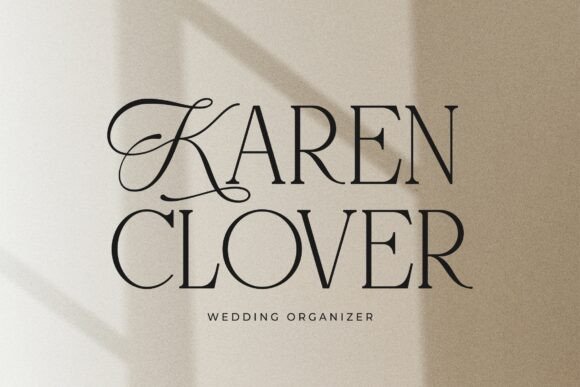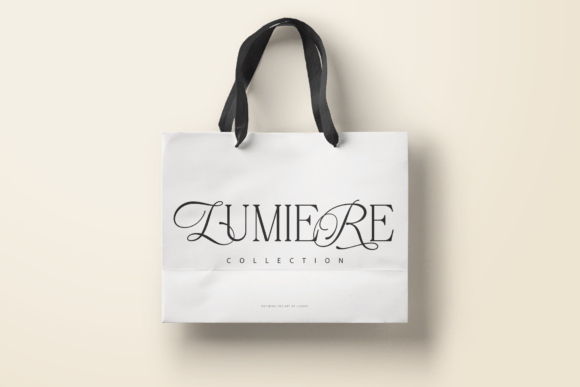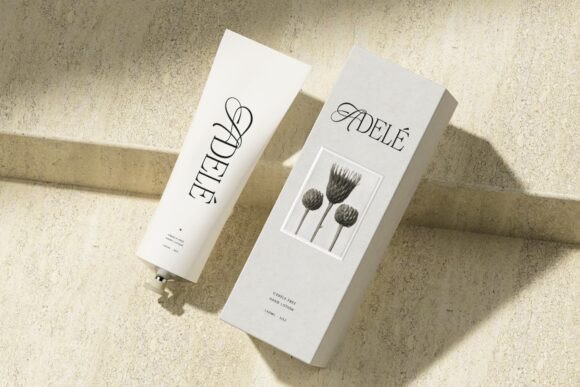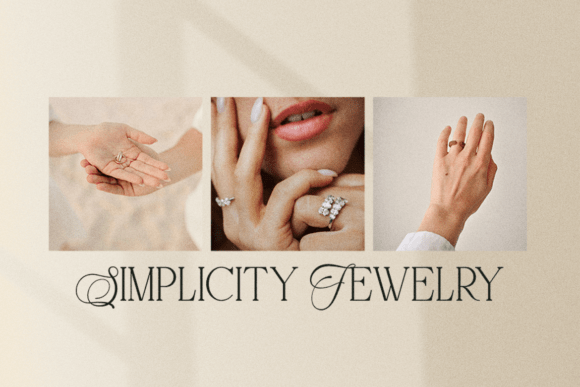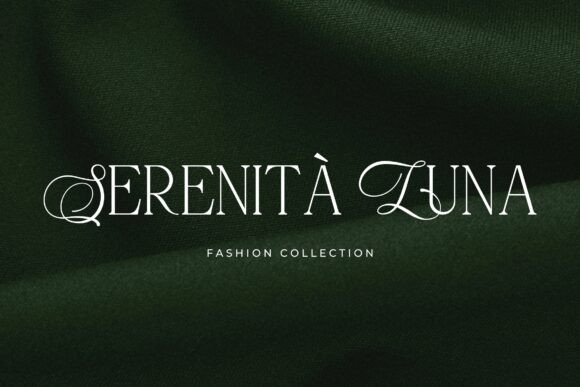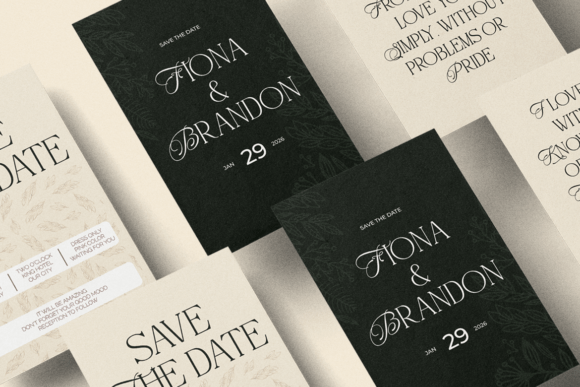
Introducing Atelier Blume: The Elegant Union of Script and Serif
In the world of typography, few fonts manage to capture the essence of elegance and versatility as effectively as Atelier Blume. This refined typeface is a masterful blend of elegant script and timeless serif, creating a duo that not only stands strong on its own but also harmonizes beautifully when used together. Atelier Blume offers a fresh perspective on typographic design, making it an ideal choice for a wide range of creative projects, from branding and web design to editorial work.
The Harmony of Script and Serif
Atelier Blume’s unique charm lies in its dual nature. The script component brings a fluid, organic feel, perfect for adding a personal touch to designs. Meanwhile, the serif element provides structure and a sense of tradition, ensuring readability and a classic appeal. This combination allows designers to craft visually appealing and emotionally resonant content. Whether you’re aiming for sophistication, creativity, or a mix of both, Atelier Blume offers the flexibility to bring your vision to life.
Versatility at Its Core
One of the standout features of Atelier Blume is its incredible versatility. Designers can use the script and serif components separately, each bringing its own unique flair to a project. However, the real magic happens when they’re combined. Atelier Blume allows for the seamless merging of its two styles within a single word, creating a distinctive and eye-catching look that’s sure to capture attention. This ability to blend styles with such ease makes it a valuable tool for designers looking to push the boundaries of creativity.
Ideal for Creative Projects
Atelier Blume’s range of applications is vast. In branding, it can help create a memorable and elegant identity. For web design, its readability and aesthetic appeal make it perfect for both headings and body text. In editorial work, Atelier Blume adds a touch of sophistication, making articles, magazines, and books stand out. Its adaptability also extends to digital platforms, ensuring consistency across all mediums.
Create with Emotion, Write with Character
Atelier Blume isn’t just a typeface; it’s a means of expression. It invites designers to create with emotion and write with character. The font’s natural elegance shines through in every letter, allowing designers to convey their message with grace and style. Whether you’re crafting a brand story, designing a website, or laying out a magazine spread, Atelier Blume helps ensure that your designs convey a sense of refinement and thoughtfulness.
Technical Insights
For those interested in the technical aspects, Atelier Blume is designed with meticulous attention to detail. Its script component features flowing connections and varying stroke widths, giving it a dynamic feel. The serif element, on the other hand, boasts crisp lines and classic proportions, ensuring legibility across different sizes and resolutions. This careful balance of form and function makes Atelier Blume not only beautiful but also highly functional.
Atelier Blume represents a significant addition to the world of typography, offering a unique blend of elegance and versatility. Its combination of script and serif styles, along with its ability to merge these styles seamlessly, makes it an invaluable resource for designers. Whether you’re looking to elevate your branding, enhance your web design, or add sophistication to your editorial projects, Atelier Blume provides the tools to create something truly special. With Atelier Blume, designers can unlock new levels of creativity, bringing their visions to life with a typeface that is as elegant as it is versatile.
Embrace the beauty of Atelier Blume in your next project and discover how this refined typeface can help you create with emotion, write with character, and convey natural elegance in every design.